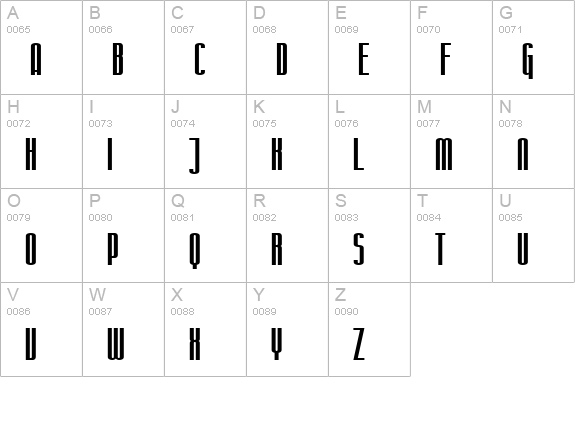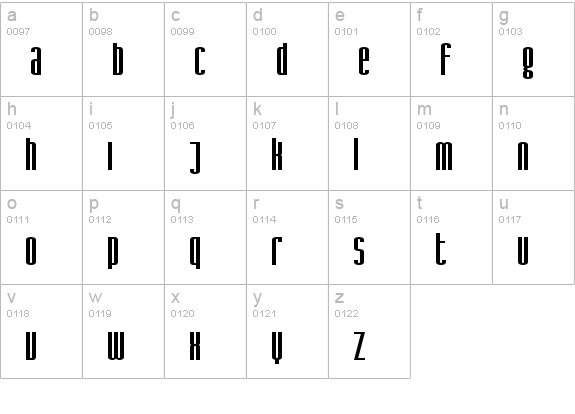
SF Iron Gothic is a bold and powerful font that exudes a sense of strength and resilience. With its sharp edges and sturdy, industrial-inspired design, this font is perfect for projects that require a touch of toughness and a modern edge. SF Iron Gothic is not only visually striking but also highly versatile. It can be used for various design purposes, ranging from logo design and headlines to posters and packaging. Its bold and impactful presence will ensure that your message is delivered with confidence and authority. One of the most appealing aspects of SF Iron Gothic is that it is freely available to download at FontsMarket.com. This means that you can easily access this remarkable font without any restrictions or limitations. Whether you are a professional designer or a creative enthusiast, SF Iron Gothic allows you to elevate your projects to new heights without any additional costs. The attention to detail in SF Iron Gothic is truly remarkable. Each letter is meticulously crafted, ensuring consistency and clarity throughout your designs. The clean lines and precise angles give this font a sense of modernity and sophistication, making it a perfect choice for contemporary projects. Whether you are designing a futuristic poster, a cutting-edge logo, or a sleek website, SF Iron Gothic will make a bold statement that will captivate your audience. Its distinctive style and strong presence will leave a lasting impression, ensuring that your designs stand out from the crowd. In conclusion, SF Iron Gothic is a striking font that combines a sense of strength with a modern edge. With its versatility and high-quality design, it is a perfect choice for a wide range of projects. And the best part? It is freely available to download at FontsMarket.com, allowing you to access this exceptional font without any constraints. So go ahead, unleash your creativity, and let SF Iron Gothic elevate your designs to new heights.